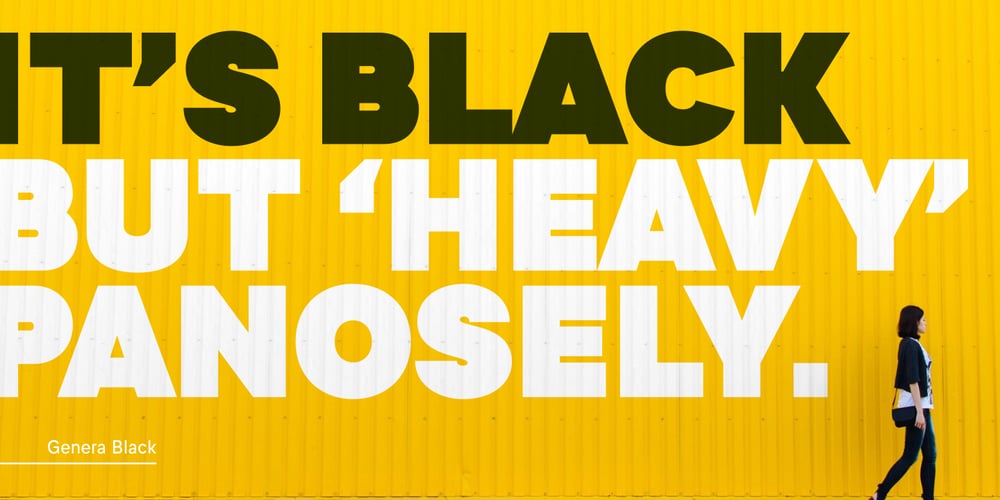
Genera Font Family was designed by Wahyu Wibowo and published by Wahyu and Sani Co.. Genera contains 44 styles and family package options. Introducing Genera, a strong & clean modern sans serif font family designed in two versions – Genera & Genera Alt, which complement each other for body copy & display text. It comes in 10 weights with matching italics (oblique) styles with 4 variable weight fonts for a total of 44 fonts, will give you a freedom to choose the weight you need between Thin & Black.This typeface also equipped with useful OpenType features such as Ordinal, Superior, Stylistic Alternates, Proportional Figure, Fraction, Numerator & Denominator. Each font file has 470+ glyphs which covers Western & Eastern Europe Latin language, as well as other Latin based languages – over 200 languages supported!This typeface has 44 font members consisting of: 4 variable fonts (Genera; upright & oblique, Genera Alt; upright & oblique), 40 single fonts (Genera; upright & oblique in 10 weights, Genera Alt; upright & oblique in 10 weights). Genera will be a Swiss knife for your creative projects, a real multi-purpose typeface that’ll be perfect for logo, packaging, greeting cards, presentations, headlines, lettering, posters, branding, quotes, titles, magazines, headings, web layouts, mobile applications, art quote, typography, advertising, invitations, packaging design, books, book title, & nearly any other type of creative design you’re working on.